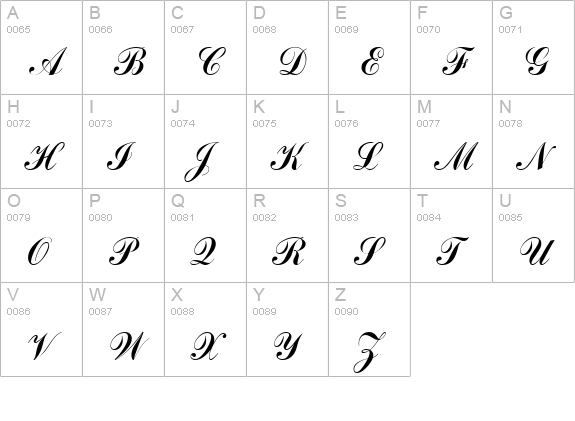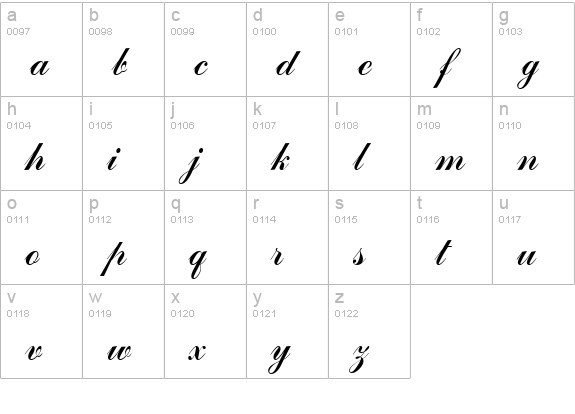
Handscript SF Font Details
Handscript SF is a beautifully crafted handwriting font that exudes elegance and sophistication. With its flowing strokes and delicate curves, this font adds a touch of personal charm to any design project. Whether you're creating invitations, greeting cards, or even branding materials, Handscript SF brings a unique and handcrafted element that sets your work apart. What makes Handscript SF even more appealing is that it is available for free download at FontsMarket.com. Yes, you read that right - this stunning font can be yours without spending a dime. FontsMarket.com is a trusted source for high-quality fonts, and Handscript SF is just one of the many gems you can find on their website. Downloading Handscript SF is a breeze. Simply visit FontsMarket.com, search for the font, and click the download button. Within seconds, you'll have access to this delightful typeface that will elevate your designs to new heights. Whether you're a professional designer or a DIY enthusiast, Handscript SF gives you the freedom to create with confidence and style. So why wait? Download Handscript SF today and let your creativity soar. With its free availability and exceptional design, this font is a must-have for anyone looking to add a touch of elegance and personality to their projects. Don't miss out on this opportunity to enhance your designs with Handscript SF - visit FontsMarket.com now and start creating something truly remarkable.